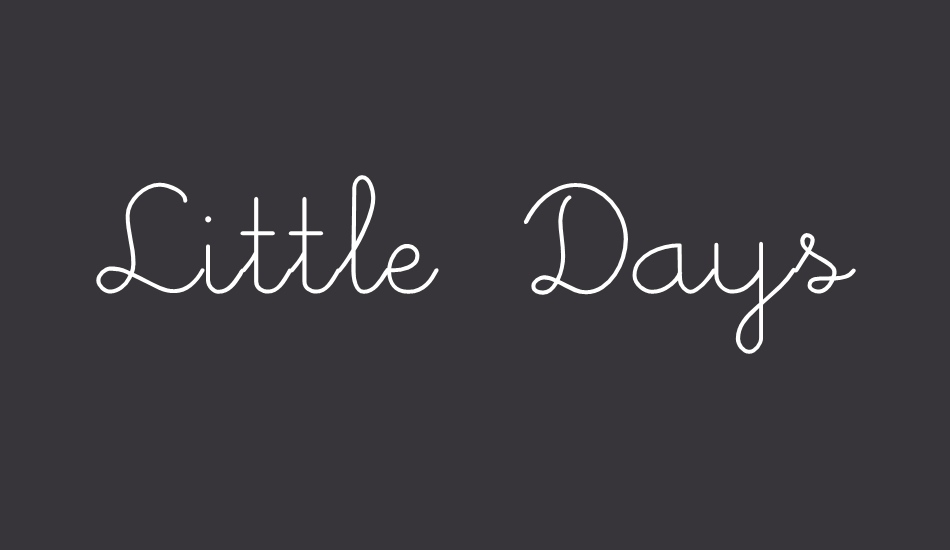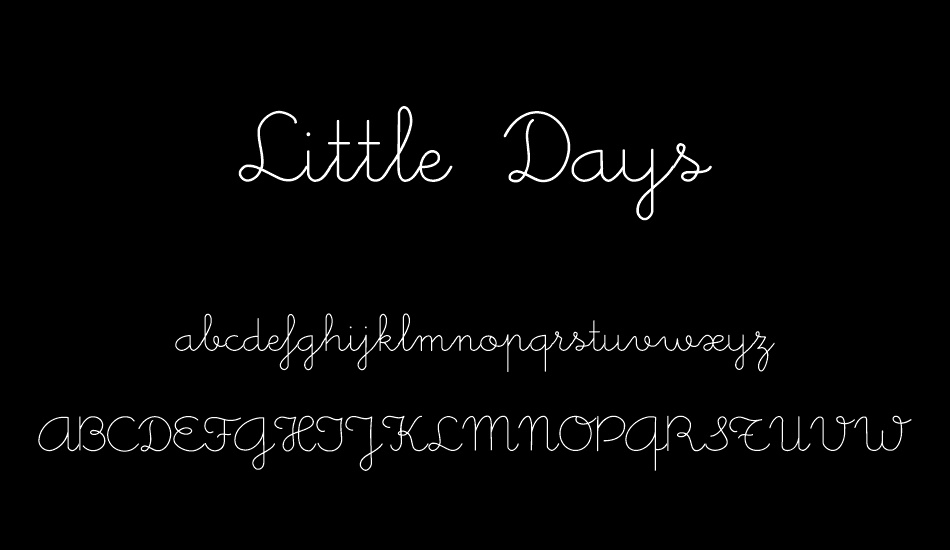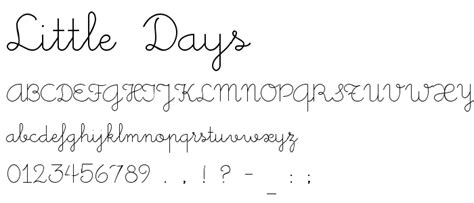
Font Little Days
Font Little Days - Web download little days font for free! Little days is a script type font that can be used on any. Web little days is a free font for commercial use created by west wind fonts. Web little days à by west wind fonts.
Web download little days font for free! Web little days is a free font for commercial use created by west wind fonts. Web little days à by west wind fonts. Little days is a script type font that can be used on any.
Little days is a script type font that can be used on any. Web little days is a free font for commercial use created by west wind fonts. Web little days à by west wind fonts. Web download little days font for free!
Web download little days font for free! Web little days à by west wind fonts. Web little days is a free font for commercial use created by west wind fonts. Little days is a script type font that can be used on any.
Web little days is a free font for commercial use created by west wind fonts. Web little days à by west wind fonts. Little days is a script type font that can be used on any. Web download little days font for free!
Little days is a script type font that can be used on any. Web little days is a free font for commercial use created by west wind fonts. Web little days à by west wind fonts. Web download little days font for free!
Web little days à by west wind fonts. Little days is a script type font that can be used on any. Web download little days font for free! Web little days is a free font for commercial use created by west wind fonts.
Web little days à by west wind fonts. Web little days is a free font for commercial use created by west wind fonts. Web download little days font for free! Little days is a script type font that can be used on any.
Web little days à by west wind fonts. Web download little days font for free! Web little days is a free font for commercial use created by west wind fonts. Little days is a script type font that can be used on any.
Little days is a script type font that can be used on any. Web little days is a free font for commercial use created by west wind fonts. Web little days à by west wind fonts. Web download little days font for free!
Web little days à by west wind fonts. Web little days is a free font for commercial use created by west wind fonts. Little days is a script type font that can be used on any.